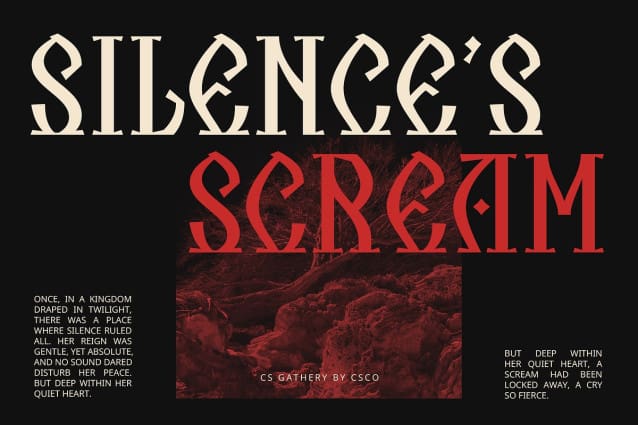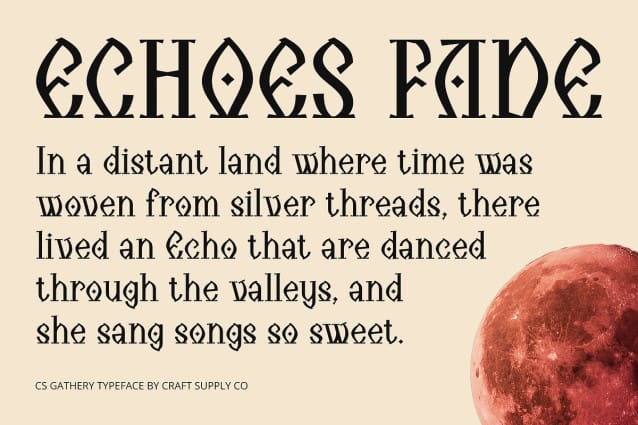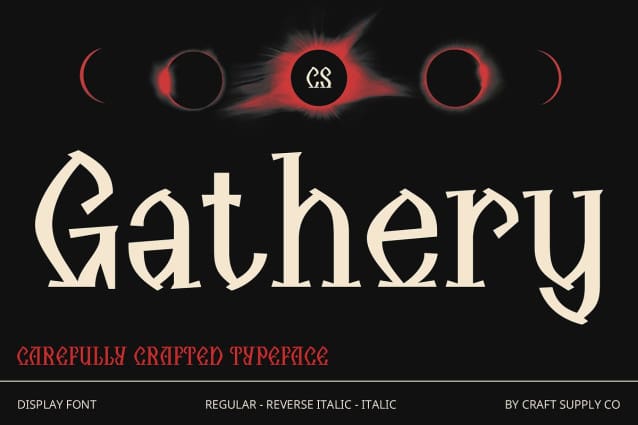
CS Gathery Font
CS Gathery Font is a striking display serif font that showcases quirky and unique shapes, offering a captivating character perfect for a variety of creative designs. Its unconventional lines and eccentric decorative elements give this font an artistic flair, making it a standout choice for projects that aim to leave a lasting impression.
Artistic Touch for Creative Projects With its playful and distinctive visual style, CS Gathery adds a refreshing artistic touch to a range of applications, including posters, invitations, and branding materials. Whether used in headlines or decorative elements, this font’s striking design ensures that your message captures attention and engages your audience.
Balance of Boldness and Elegance The strong and distinctive visual impression of CS Gathery makes it an ideal candidate for representing a bold and innovative brand identity. Despite its quirky style, the serif nature of the font maintains an elegant and traditional feel, creating a perfect balance between modern creativity and classic sophistication.
Perfect for Innovative Branding This display serif font is designed for those who seek to push boundaries while still appreciating the charm of traditional typography. Its unique shapes and playful elements make it particularly suited for creative endeavors that celebrate individuality and innovation.